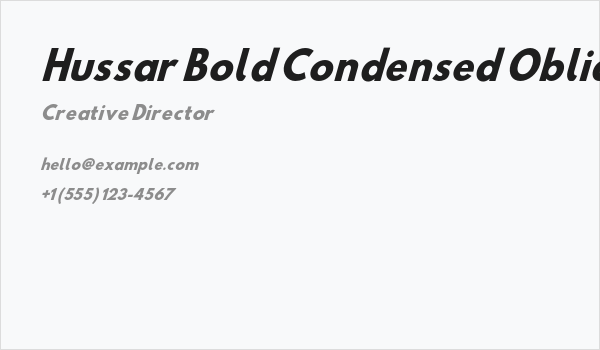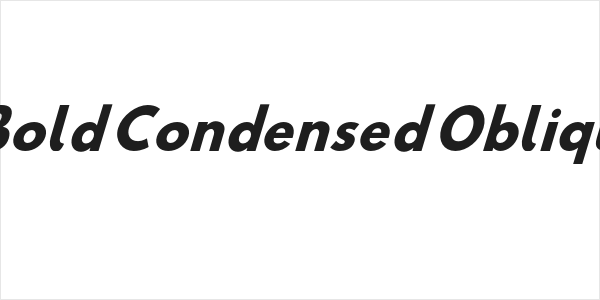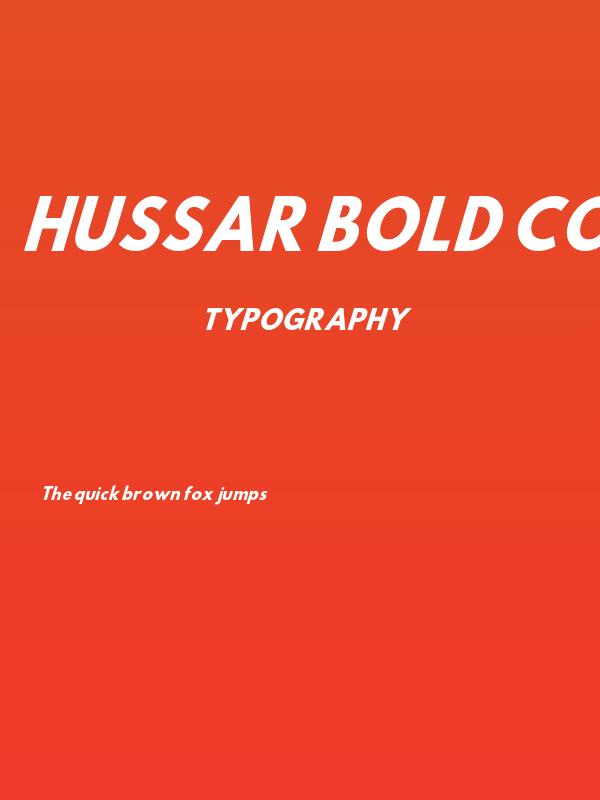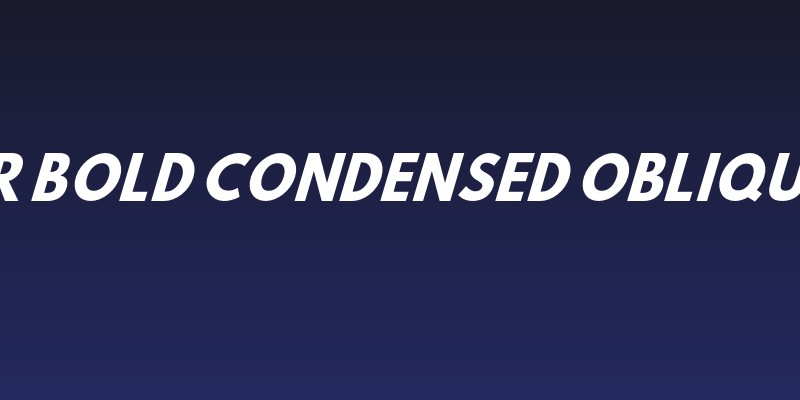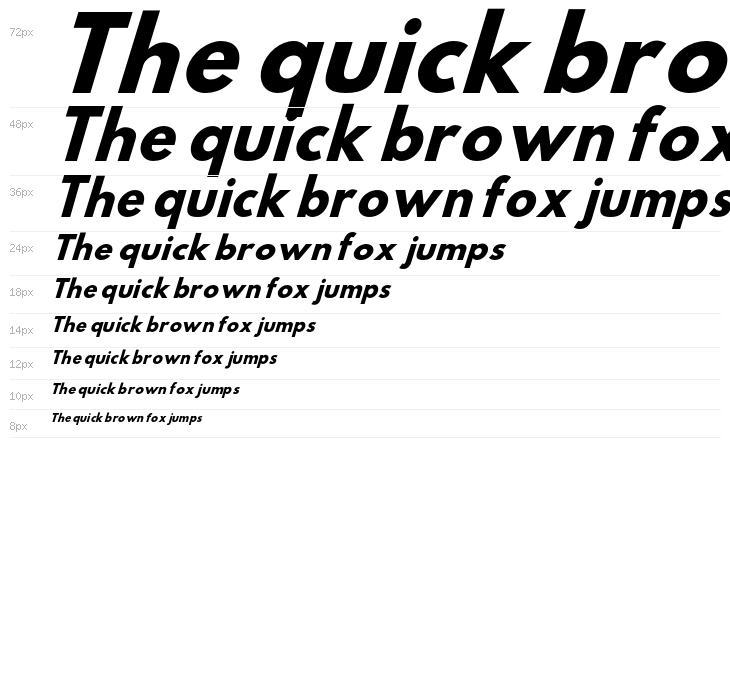
Hussar Bold Condensed Oblique Three Font
Hussar Bold Condensed Oblique Three Description
This font features a bold and condensed style with an oblique slant, giving it a dynamic and assertive appearance. The characters are tightly spaced, enhancing its compact look. The strokes are consistent in thickness, providing a uniform and clean presentation. Its modern and sleek design makes it suitable for impactful headlines and attention-grabbing text. The font includes a full set of uppercase and lowercase letters, numerals, and a variety of special characters, ensuring versatility in design applications.
| Proposed Projects | Ideal for headlines, posters, advertisements, and branding materials that require a strong visual impact. |